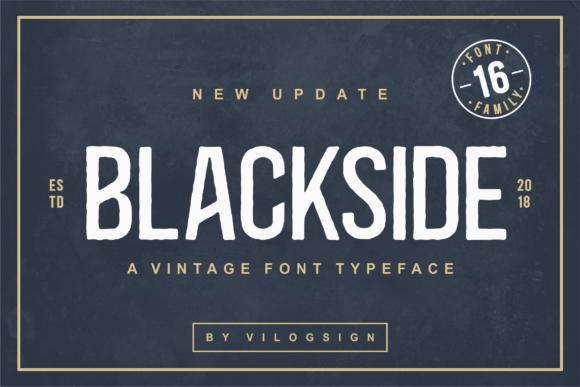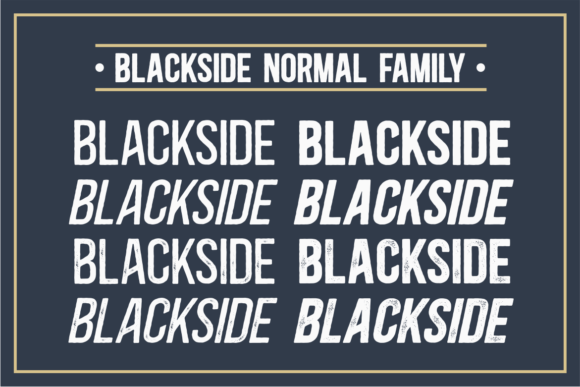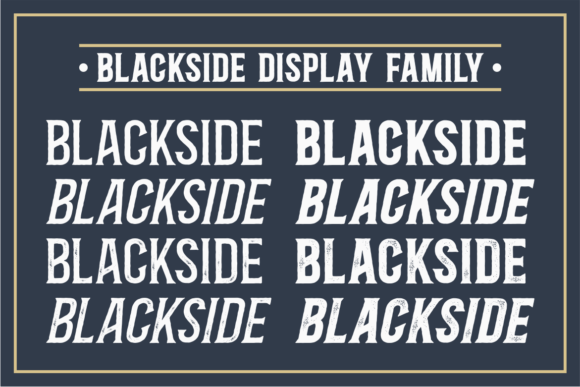
Blackside Font: Rough & Round Vintage Font for Logos & Posters! Typography
About the Blackside Font
Experience the unique personality of Blackside Font, a font designed for impact. The Blackside is a vintage font family with a round and rough touch. It has a natural feel and is perfect for logos, labels, banners, posters, and every other design which needs a natural feel.
Included as a bonus are fun elements.
Blackside’s roundness makes it ideal for headlines, short body text, and branding applications where a friendly, approachable feel is desired. It excels in posters, packaging, and logos, particularly for products emphasizing natural or handcrafted qualities. However, its vintage style and relatively low x-height make it unsuitable for extensive body copy or UI elements requiring high readability.
For optimal visual balance, pair Blackside with a clean sans-serif like Montserrat for a modern contrast, or a classic serif such as Garamond for a more traditional feel. A playful script font, such as Pacifico, could also complement its vintage charm for specific applications needing a touch of whimsy.
Blackside’s overall personality is best described as rustic and approachable, conveying a sense of warmth and authenticity. It is perfect for brands focusing on craftsmanship, nature, or vintage aesthetics.
Blackside Font Usage Examples
Blackside Font Example